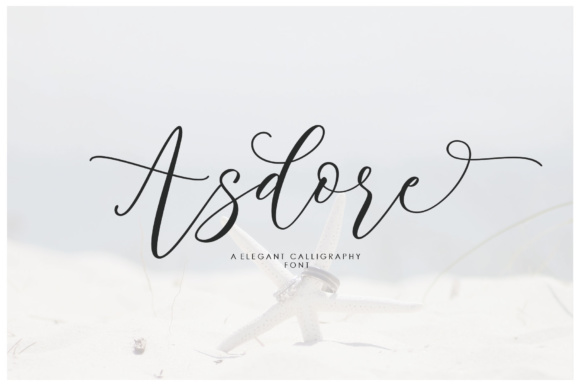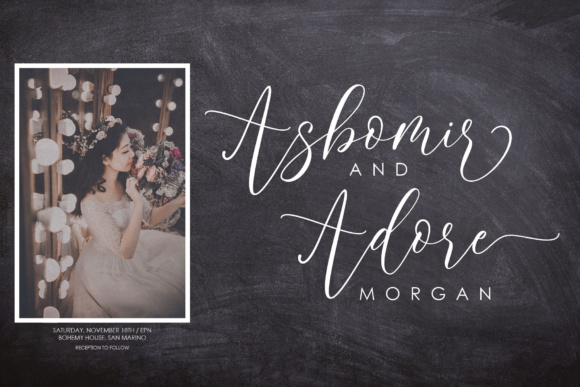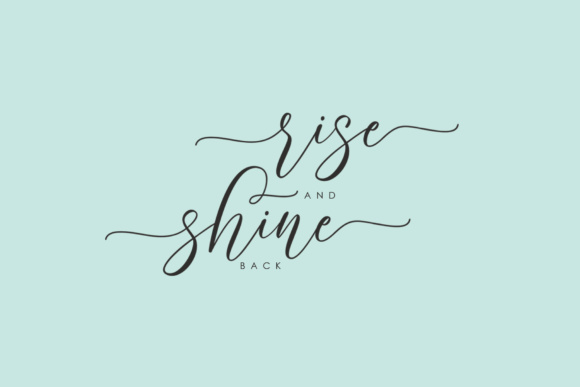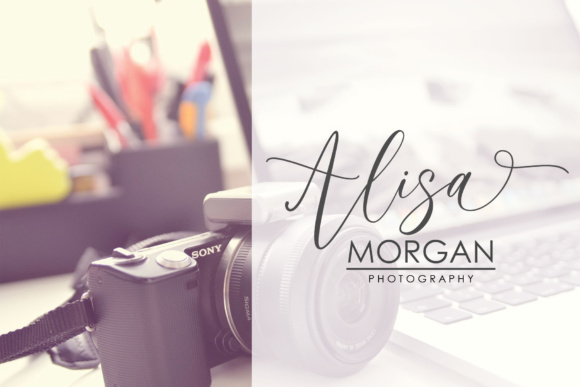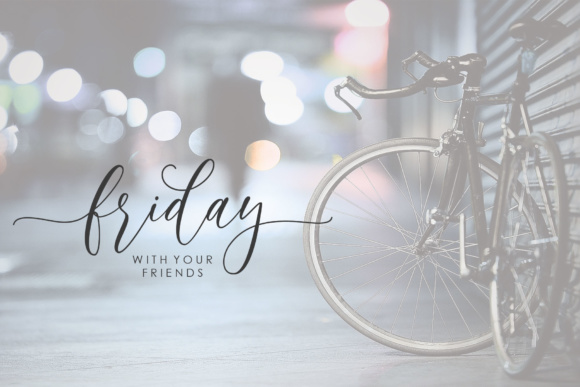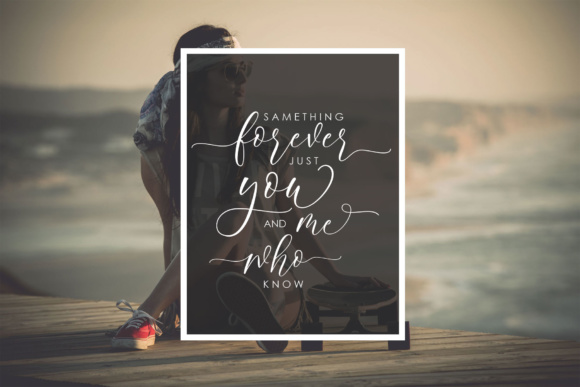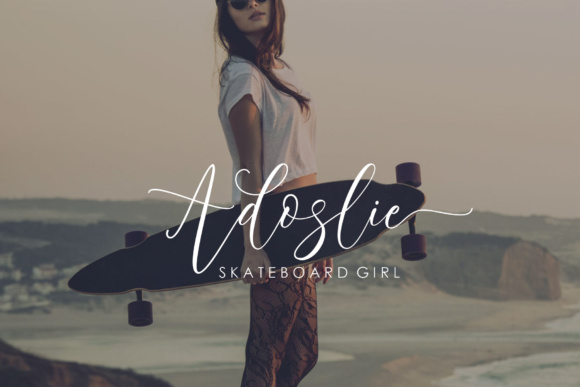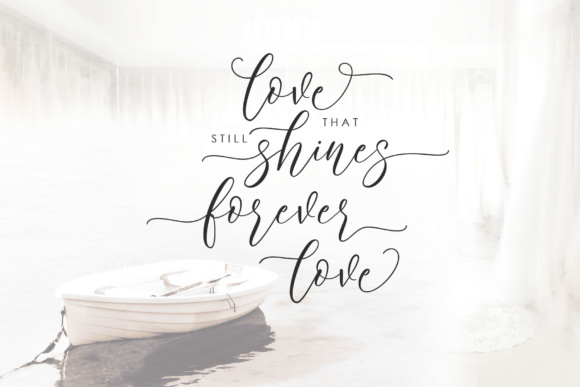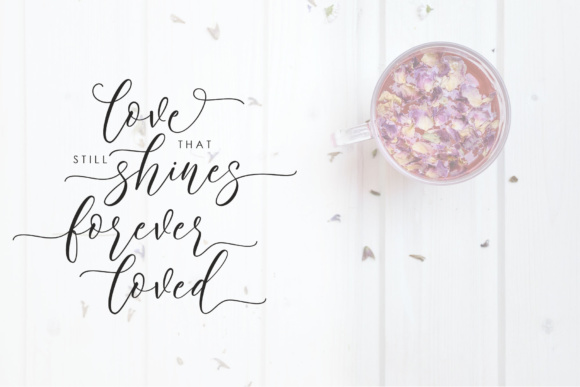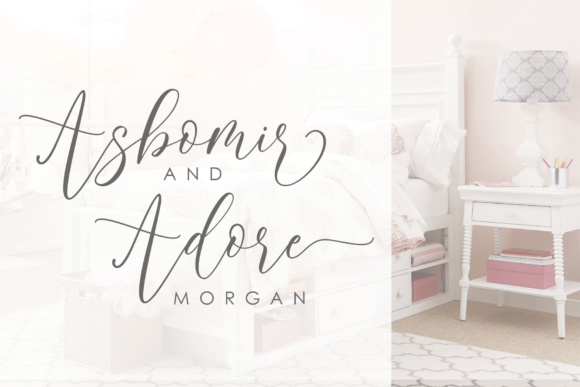
Asdore Font
About Asdore Font
Asdore is an elegant and bouncy script font, ideal for those who need a touch of glamour with a relaxed look. This font comes with tons of stylistic alternates, and gives your projects a special and extravagant look.